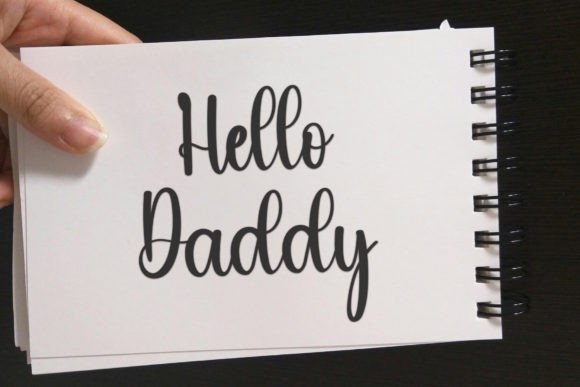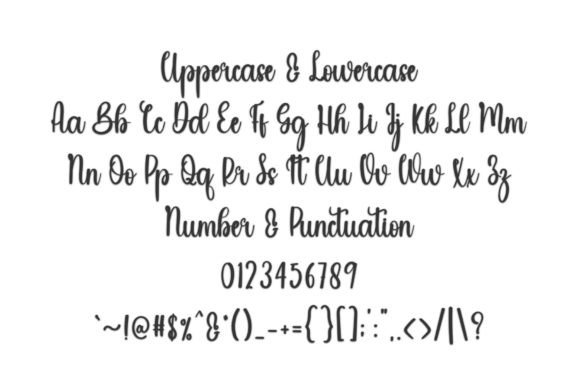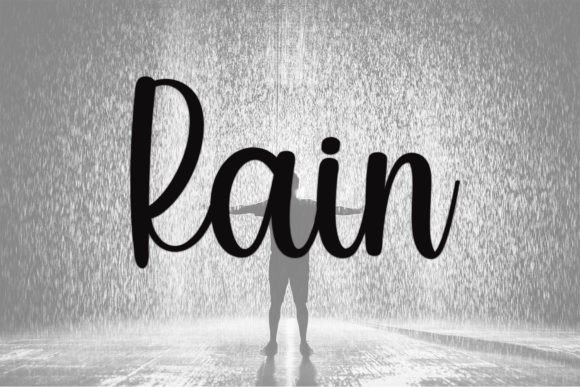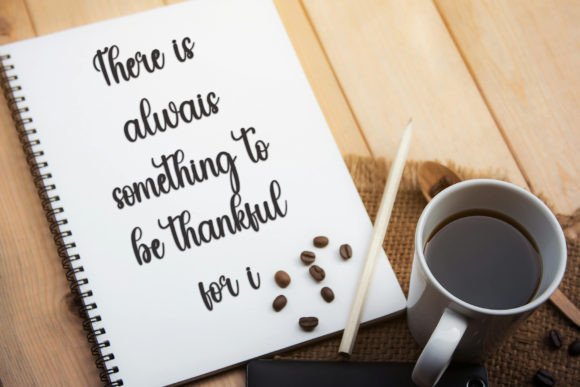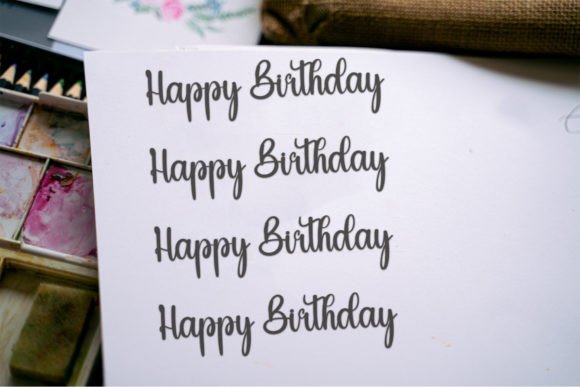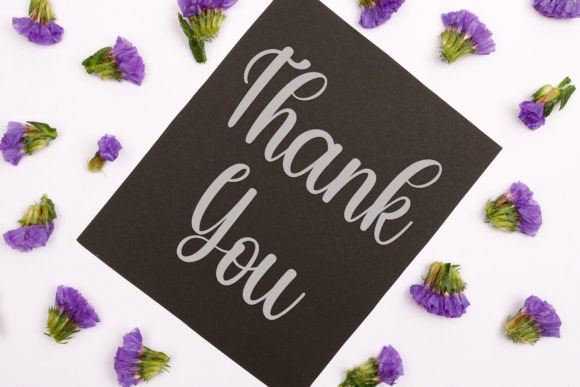
The Perfect Font for Your Summer Projects
As you sit by the window, sipping your morning coffee, and browsing through your design ideas, don’t you wish you had the perfect font to bring your creations to life? That’s exactly what the Beautiful Summer Font does – it brings a touch of elegance and sophistication to your projects, making them truly unforgettable.
Beautiful Summer is a beautiful handwritten font that exudes an air of sophistication and refinement. It’s the perfect addition to your design arsenal, whether you’re working on a summer-themed project, a wedding invitation, or a promotional material for a new product launch.
This lovely font is a game-changer for designers, offering a unique and timeless style that’s sure to make your designs stand out. With Beautiful Summer Font, you can create spectacular designs that capture the essence of summer and leave a lasting impression on your audience.
Beautiful Summer Font Key Features
- Font Family: Beautiful Summer, with multiple styles including Regular, Italic, Bold, and Bold Italic.
- Unique Characteristics: Features a unique, hand-drawn style with subtle brush strokes and elegant lines, perfect for creating a warm and inviting atmosphere.
Designer Review: Beautiful Summer Font
Overall, I think the Beautiful Summer Font has a lot of charm and character. ✨ The rounded edges and playful letterforms give it a friendly and approachable vibe that’s perfect for summer-themed projects or anything that needs a lighthearted touch. The font’s openness and fluidity make it easy to read, even at smaller sizes.
One thing I really like about this font is its versatility. ✨ It can be used for both title and body text, and it works well in a variety of contexts, from headings and captions to quotes and short paragraphs. The font’s simplicity also makes it easy to pair with other fonts or graphics.
- ⚠️ Limited character set: While the font has a wide range of letters and symbols, it’s missing some of the more exotic or international characters that might be necessary for certain projects.
- ⚠️ Not suitable for serious or formal content: The font’s playful nature and rounded edges might not be the best fit for serious or formal content, such as academic or business materials.
Overall, I think the Beautiful Summer Font is a great choice for anyone looking for a lighthearted, friendly font that’s perfect for summer-themed projects or anything that needs a playful touch.